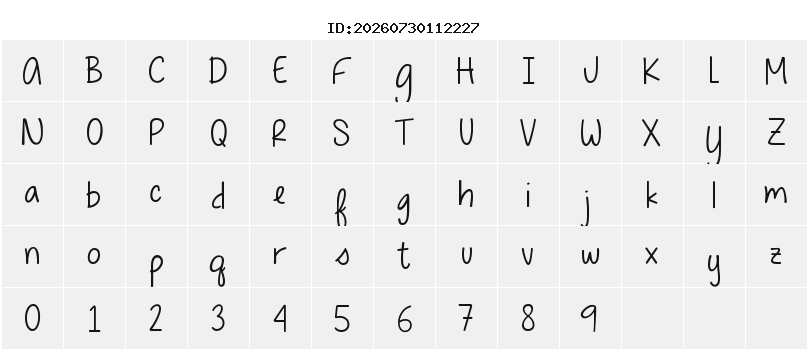
• Font Name: KG Begin Again
• Designer: Kimberly Geswein
About KG Begin Again.ttf
KG Begin Again.ttf is a modern, elegant sans-serif font designed for ultimate readability and visual harmony. Perfect for branding, headlines, web design, and print materials.